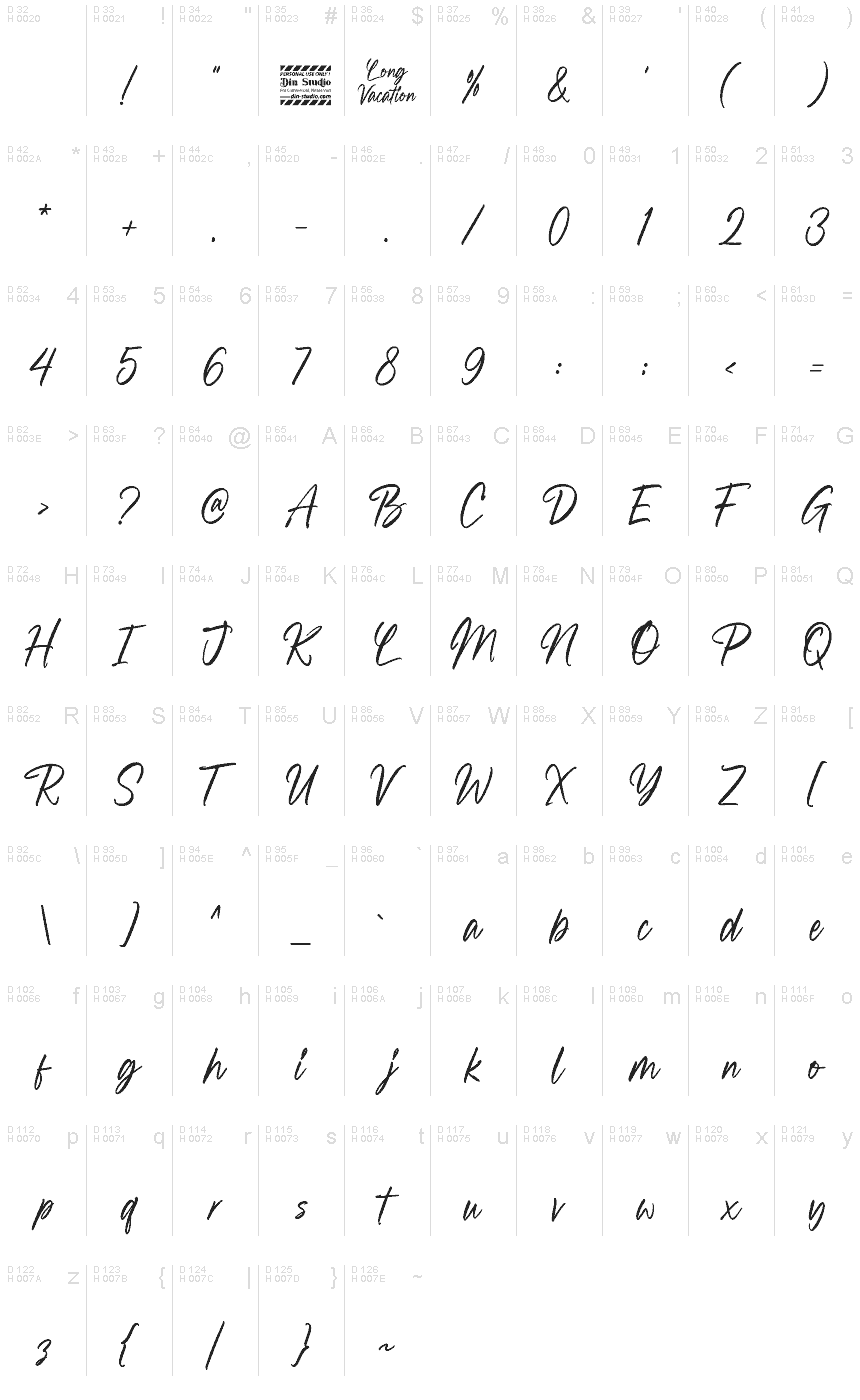
Long Vacation Personal Use Only
Long Vacation font by Din Studio is a visually captivating handwritten font that embodies a unique handwriting style. Its flowing interconnected letters and natural, lovely nuances make your designs stand out. With detailed high-contrast curves, it offers great legibility in both big and small text sizes.